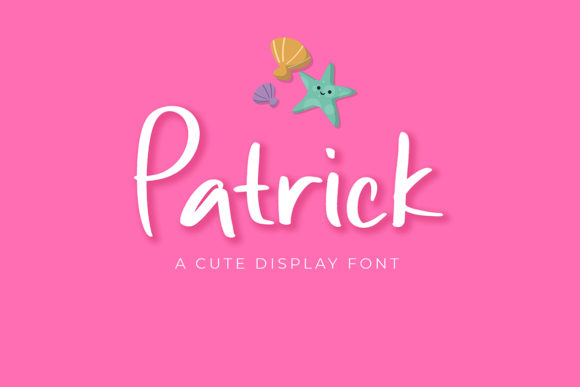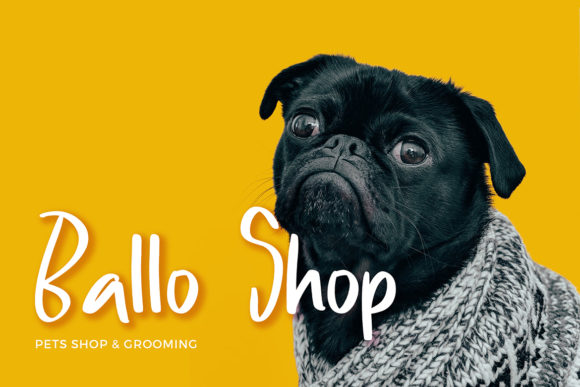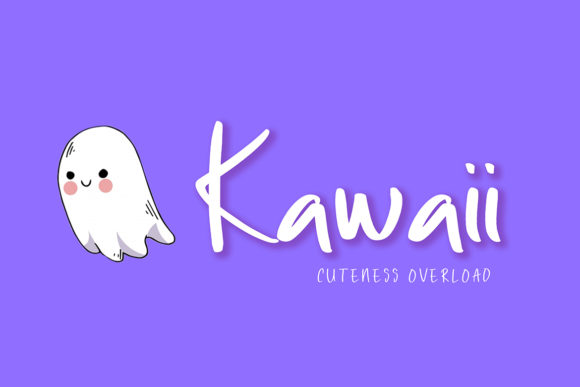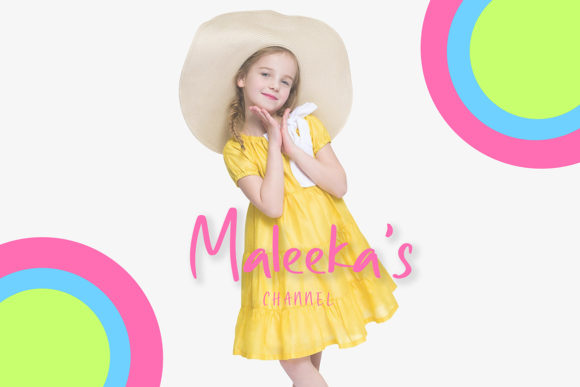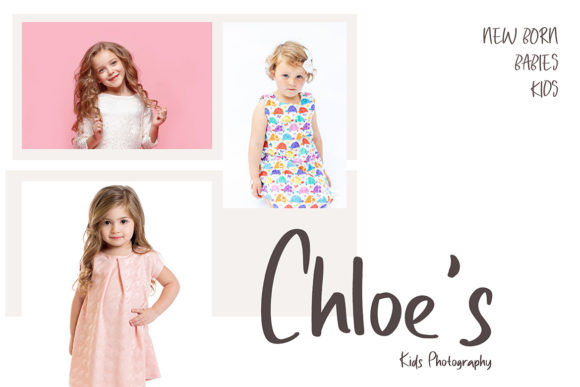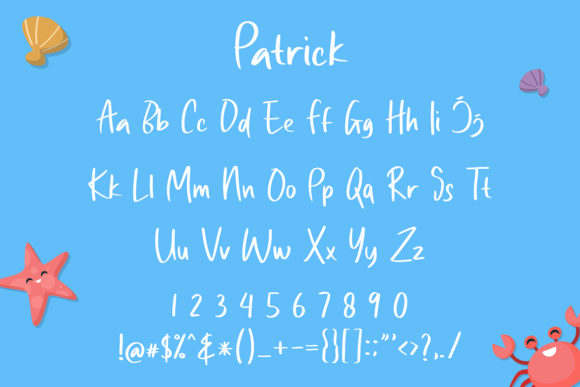
HomeSans Serif FontsPatrick Font Sans Serif Fonts Patrick Font FacebookXPinterestWhatsApp Patrick Font 1 of 6 About Patrick Font Patrick’s strength lies in its versatility: It’s both cute and heartfelt, modern and timeless – making it a great addition to any craft library. DOWNLOAD NOW People also explored Throne of Egypt Font Badrush Font Just About Rite Font Branches Font Clara Birth Flower Font Nick Marco Font Hesty and Gita Font Assinatura Font West Brown Font 339 0 TagsPatrickPatrick Font Previous articleLinguineve FontNext articleBonita Font LEAVE A REPLY Cancel reply Comment: Please enter your comment! Name:* Please enter your name here Email:* You have entered an incorrect email address! Please enter your email address here Website: Save my name, email, and website in this browser for the next time I comment. Personal Use Free Abingdon Personal Use Free Read more about this font Makeba Font Personal Use Free Read more about this font Lumber Personal Use Free Read more about this font BD Beans Personal Use Free Read more about this font BLOG To increase your work productivity, choose the most readable fonts. In today's fast-paced work environment, where digital communication and information consumption are integral to our daily routines, the choice of fonts can significantly impact... Transform Your Website: Elevate Your Typography with 7 Best Web Font Generators Top 10 Handwritten Fonts That Elevate Your Designs Best Fonts for T-Shirt Design – Top 2025 Picks